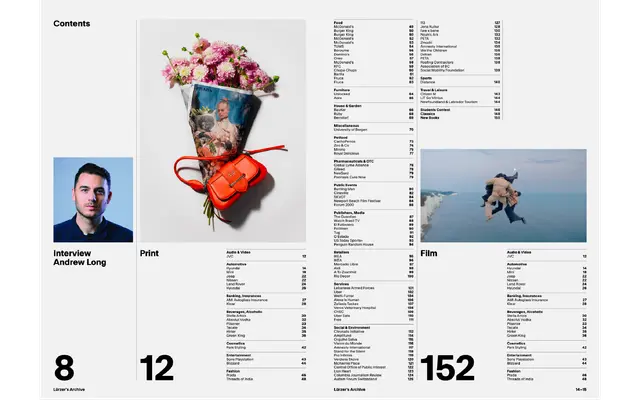
System Mono specimen from Frost
A monospaced neo-grotesque with 13 weights that introduces slab serifs to give the fixed-width format a more distinct character.
Part of Frost's System family, this mono cut departs from the proportional grotesque by adding slab serifs and tighter curves to cope with the restrictions of fixed-width spacing. The weight range runs from Skeleton to Black, giving it unusual depth for a monospaced face and allowing it to hold up from display headings down to small body text. The glyph set exceeds 750 characters, covering extended Latin, multiple numeral styles, symbols, arrows and case-sensitive forms.
A monospaced neo-grotesque with slab serif details introduced to distinguish it within the constraints of fixed-width spacing, making it a hybrid mono rather than a pure grotesque.